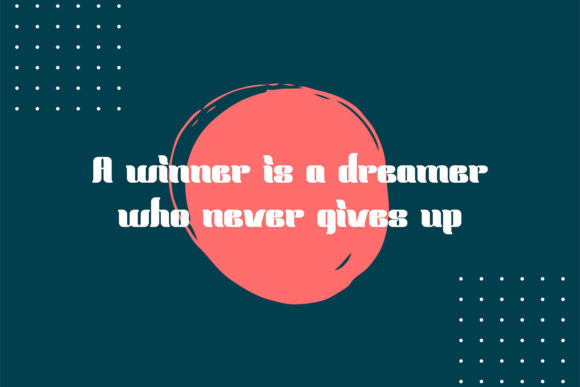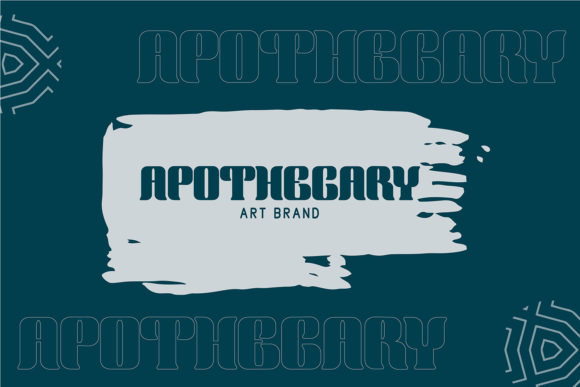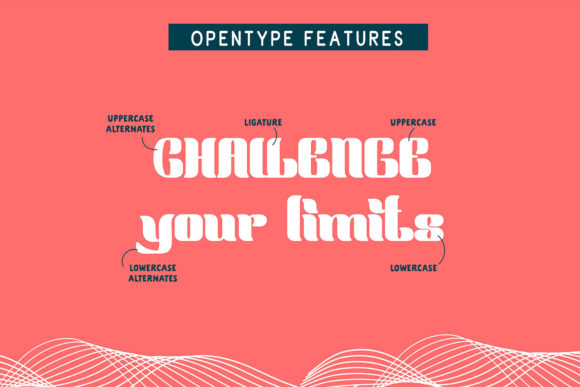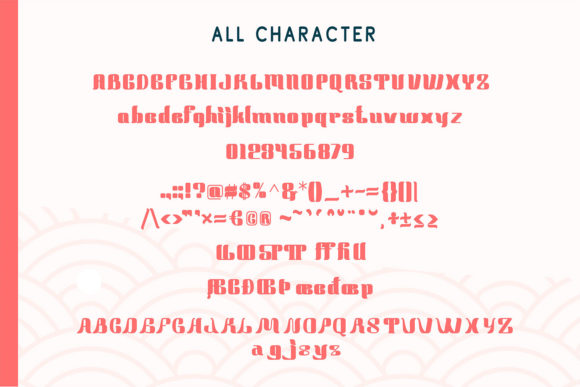
Aoyama Font
About Aoyama Font
Aoyama is a cool and assertive display font. It works great for a variety of design ideas that require a stylish touch. This font is PUA encoded which means you can access all glyphs and swashes with ease!